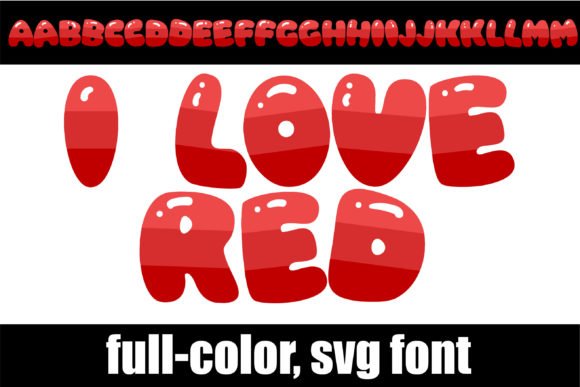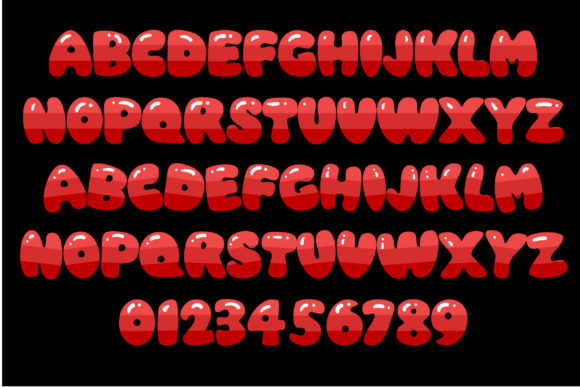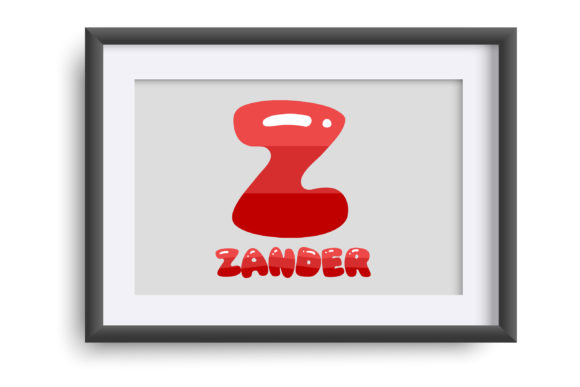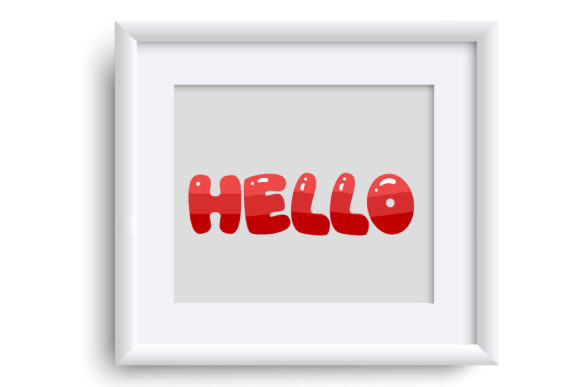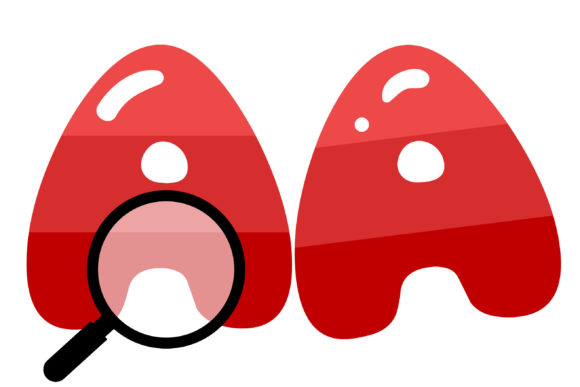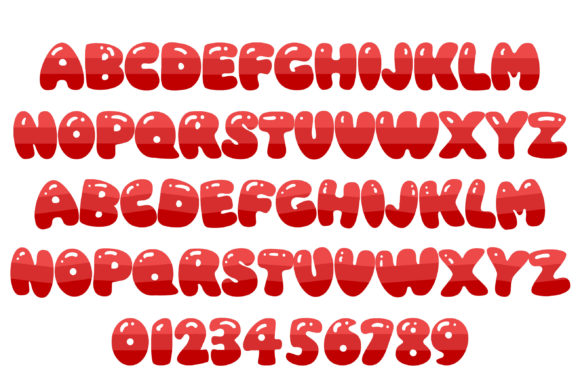
I Love Red Font: Add a Pop of Color to Your Designs
Have you ever stared at a blank canvas, struggling to find the perfect spark to ignite your creativity? It’s a feeling we’ve all been there. But what if we told you that the solution lies in a trio of vibrant reds? Say hello to I Love Red Font, a full-color, bubbly lettering that’s sure to add a pop of color to your designs.
This versatile font is designed to be used in a variety of creative projects, from graphic design to paper crafting and more. As a color font (Opentype-SVG), it’s compatible with popular design software like PhotoShop, Illustrator, Silhouette, and Inkscape. Whether you’re a seasoned designer or a crafty beginner, I Love Red Font is a valuable addition to your toolkit. With its unique, playful style, it’s the perfect way to add some personality to your projects.
I Love Red Font Key Features
- Font Family: I Love Red Font is a unique sans-serif font designed for various digital applications.
- Size: The font includes a range of weights from Thin to Black, allowing for flexibility in design and layout.
- Unique Characteristics: The font features a distinctive red accent in its design, adding a touch of personality to digital content.
Designer Review: “I Love Red Font”
Overall, “I Love Red Font” is a bold, attention-grabbing font that can work well in certain contexts. ✨ One of its strongest suits is its ability to add a pop of color to any design. It’s perfect for making headlines stand out or creating eye-catching graphics. ✨ Additionally, the font’s bold and playful feel makes it ideal for use in creative industries like fashion, art, or entertainment. ✨
However, there are a few limitations to consider. ⚠️ For one, the font’s boldness can be overwhelming if used extensively throughout a design. It’s best to use it sparingly to avoid visual fatigue. ⚠️ Another issue is the font’s limited flexibility – it may not work as well in smaller font sizes or when paired with other bold fonts. ⚠️
Overall, I’d say “I Love Red Font” is a great choice for designers who want to add some excitement to their designs. Just be sure to use it thoughtfully and in moderation. With a little creativity and restraint, this font can be a real showstopper.
- Pros:
- ✨ Adds a pop of color to designs
- ✨ Bold and playful feel
- ✨ Perfect for creative industries
- Cons:
- ⚠️ Can be overwhelming if used extensively
- ⚠️ Limited flexibility
Tip: Use I Love Red Font as a heading font to make your designs stand out.
Tip: Use I Love Red Font as a bold accent font to draw attention to important information.
Tip: Use I Love Red Font as a title font to make your presentations or documents more engaging.
I Love Red Font is perfect for:
- Creating bold and eye-catching headings.
- Drawing attention to important information.
- Adding a pop of color to your designs.